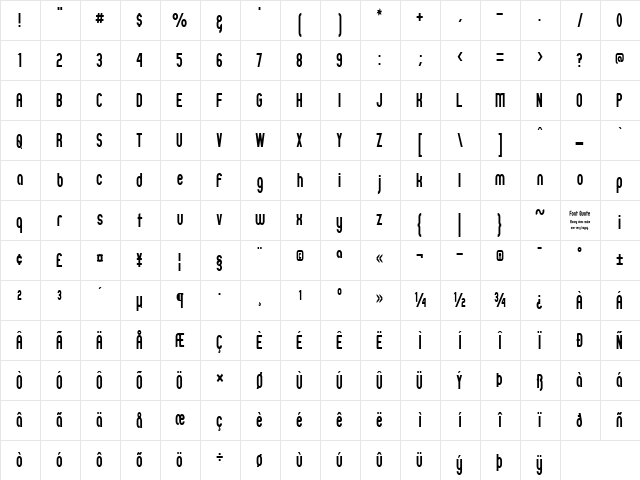
Zillah Modern Narrow Regular
Design Context for Zillah Modern Narrow Typeface
Zillah Modern Narrow takes a measured approach to typography — its balanced proportions and neutral character make it a reliable workhorse for both digital and print work. The condensed width makes it efficient for tight spaces without sacrificing legibility.